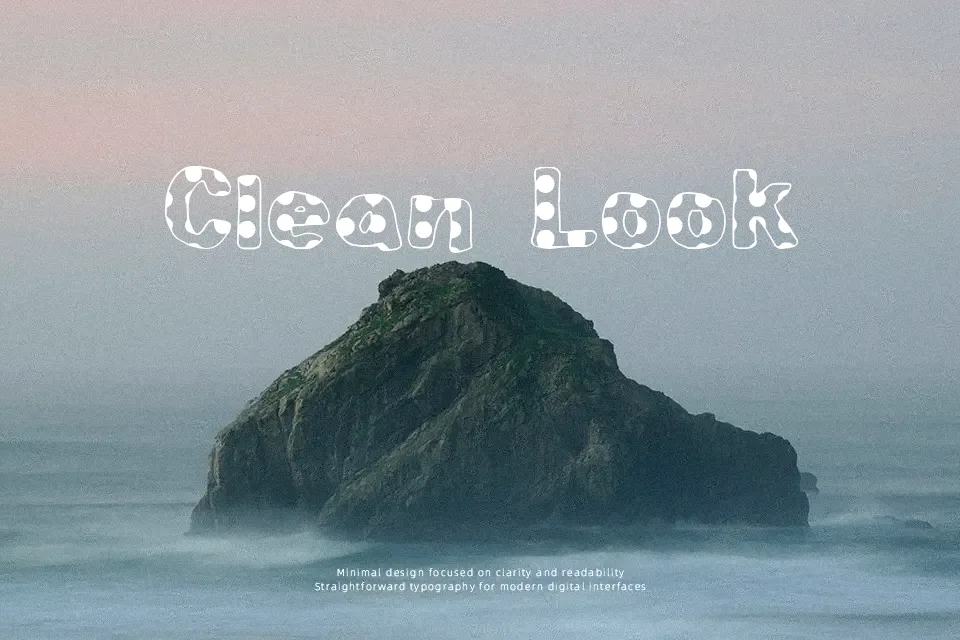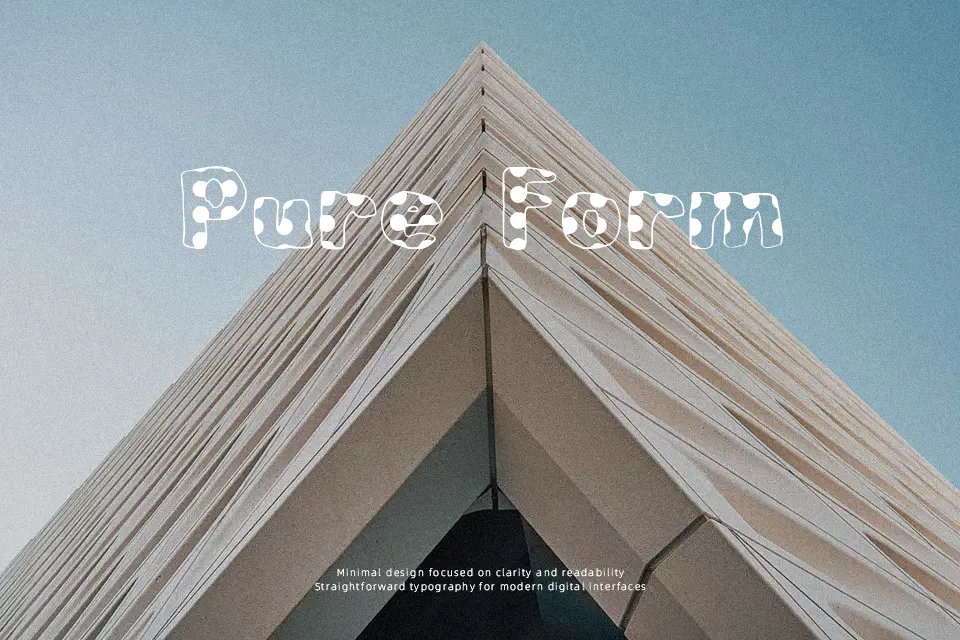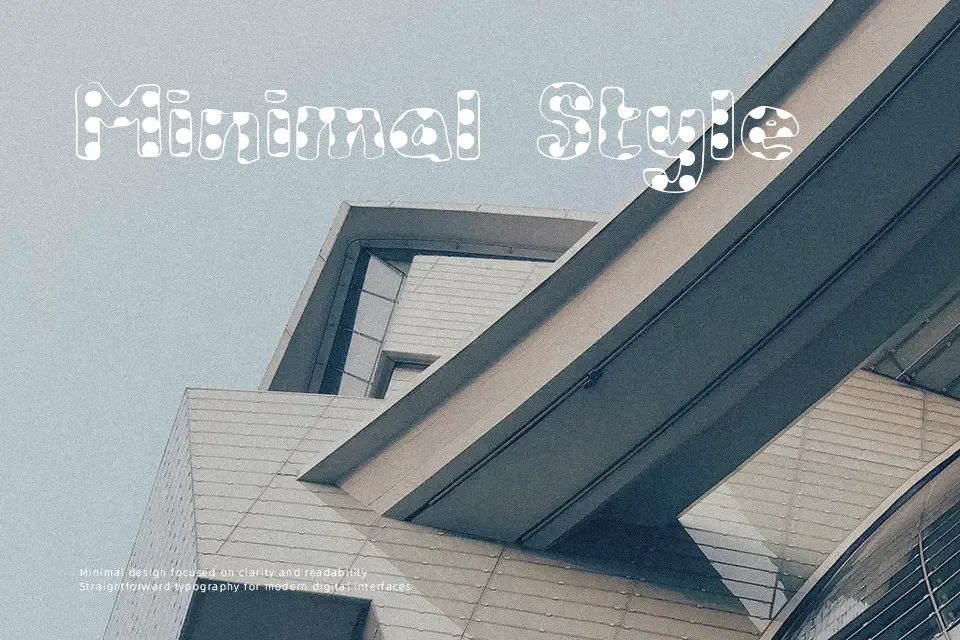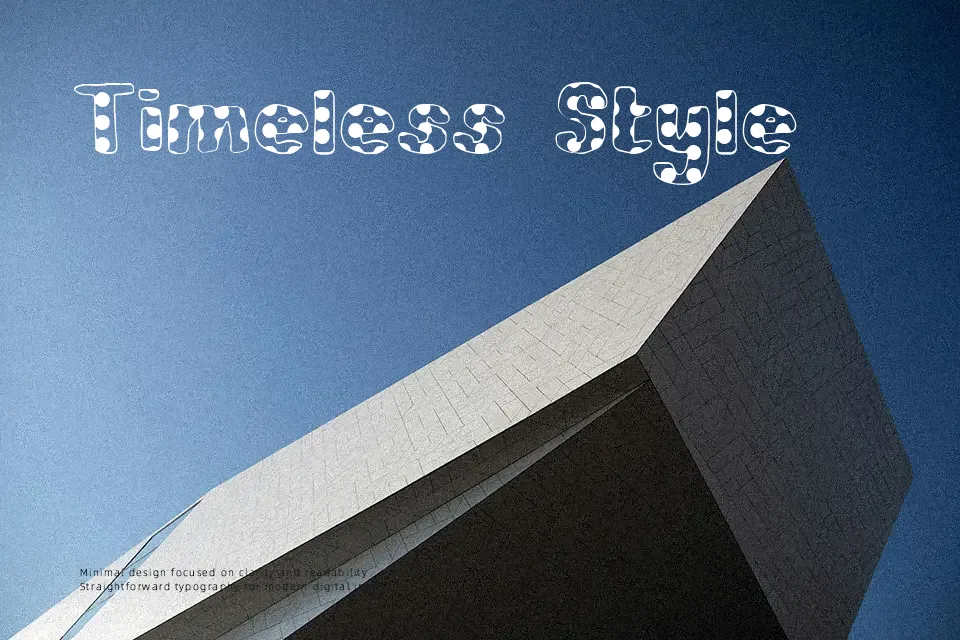
Children in Need Font
Children in Need Font is designed as an animated, heavy display typeface defined by rounded outlines and circular interior cutout motifs. Every glyph exhibits uniform stroke thickness with wide character proportions that anchor each letter securely to the baseline. Tight horizontal spacing reinforces a cohesive block structure, while the dotted texture creates lively visual contrast in prominent headlines. The decorative pattern maintains distinct personality across large festival signage, thematic apparel graphics, and community bulletin titles. However, the dense internal details become illegible at smaller point sizes, making the typeface unsuitable for multi-line body copy or compact editorial paragraphs.
Best For: charity campaign banners, youth festival posters, children book cover titles, thematic fundraising apparel
Not Ideal For: long paragraph body text, small mobile UI captions, formal business correspondence, dense technical documentation
Perfect for advertising, headline, and kids, with a bold and cartoon style.